Yes Sir is my attempt at a formal script sample. Something a bit more commercial than a freeform gestural script.
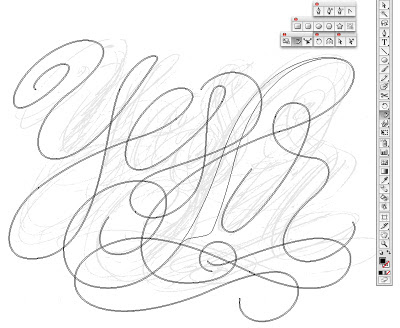
I started with a loose pencil sketch to set up the basic vector lines. As the compostion progressed I strayed from the sktech to make all the letters readable. Eventually I toned down the flourishes and added a inline give the letters some depth. The initial vector draft was a bit too complex.